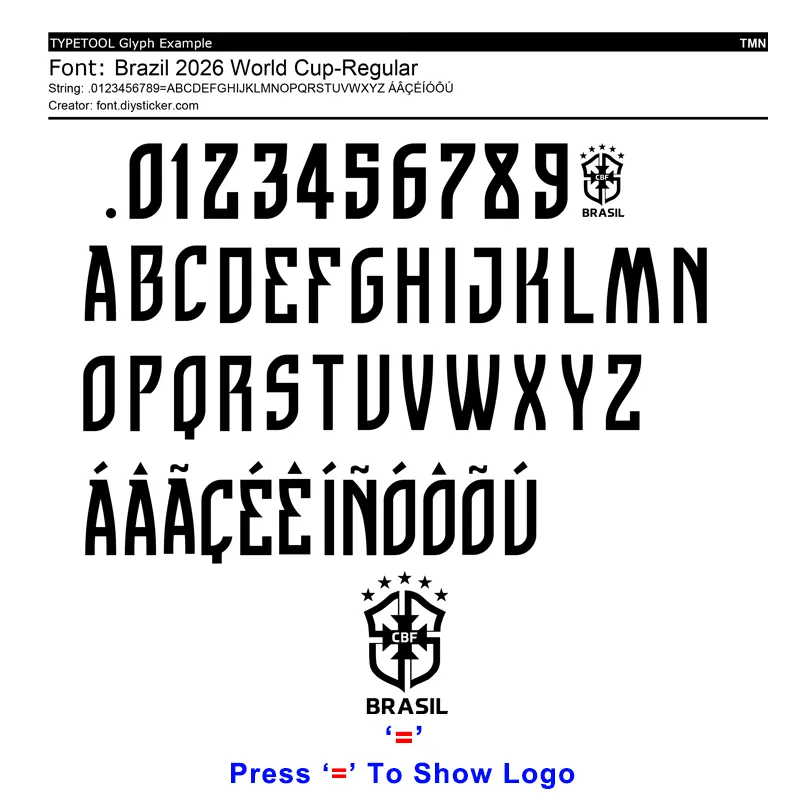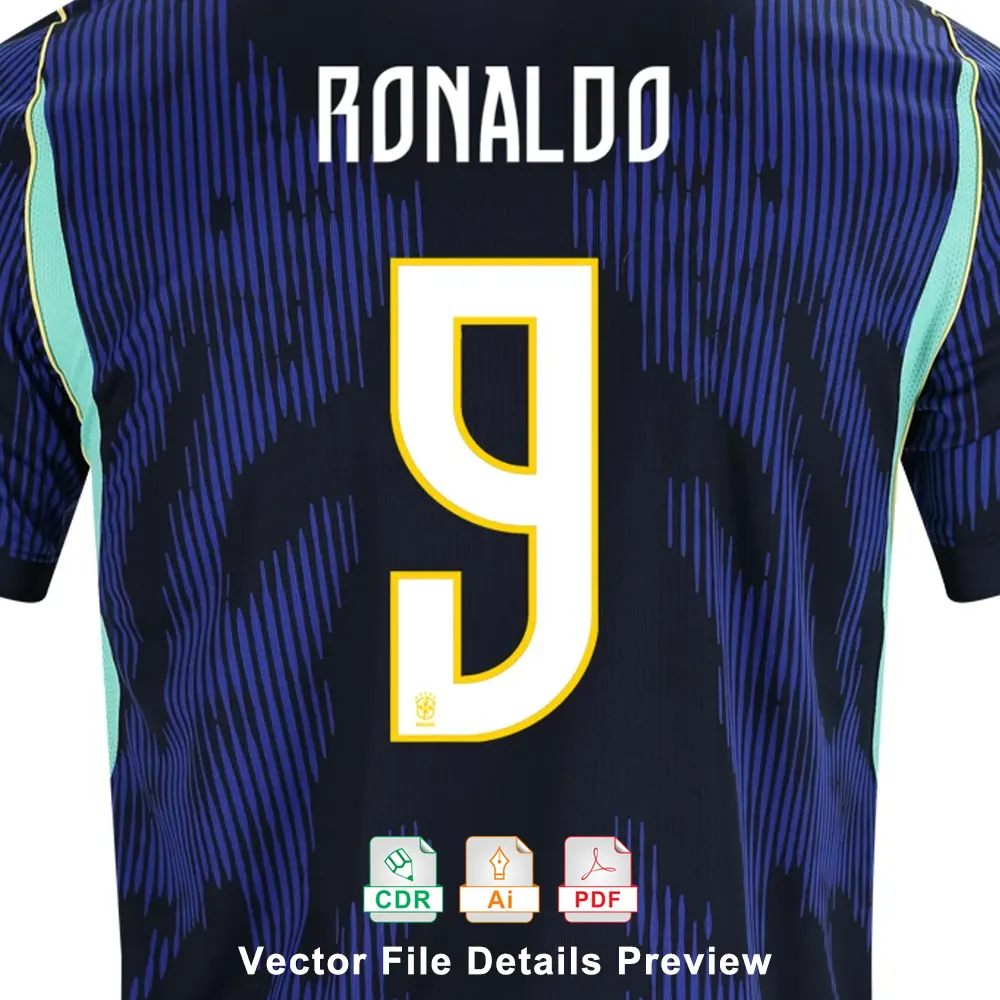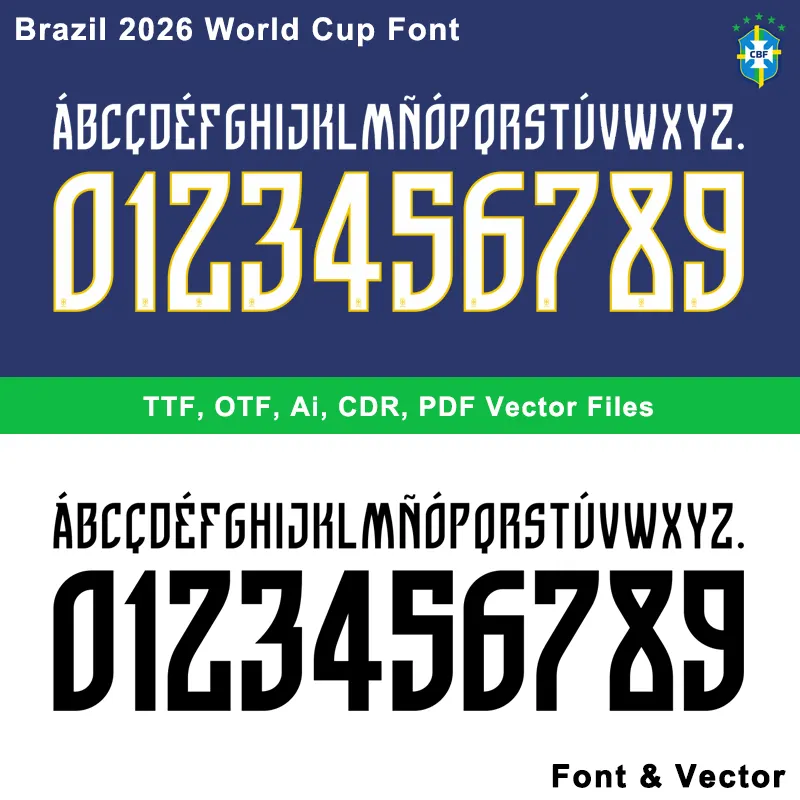
Create bold and authentic sports designs with the Brazil 2026 World Cup Font Vector Download, inspired by iconic Brazilian football style and modern jersey typography. This premium font package is designed for graphic designers, sports brands, and fans who want professional-quality results.
Note: There is no mark on the number, no small hole/dot or any type of effect (truetype rule quality, it will crash the ttf file), so ttf only has normal font, details can be added through vector software editing.